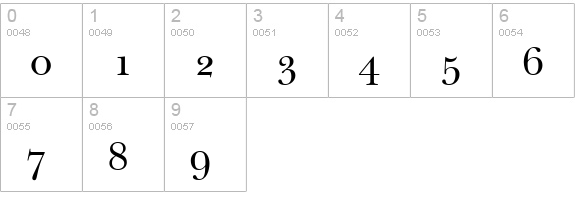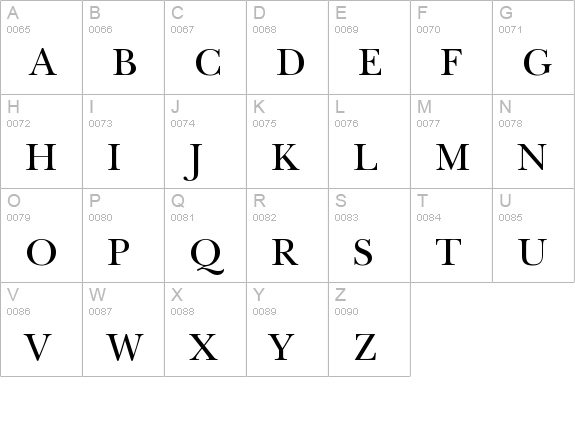
Baskerville Small Caps SSi Small Caps Font Details
Baskerville Small Caps SSi Small Caps font is a timeless and sophisticated typeface that exudes elegance and class. Its sleek and refined design makes it perfect for adding a touch of sophistication to any project. The small caps style adds a unique flair to text, making it stand out in a subtle yet impactful way. What's even better is that this exquisite font is available for free download at FontsMarket.com. Whether you're working on a professional design project or simply looking to elevate your personal creations, Baskerville Small Caps SSi Small Caps font is a versatile and stylish choice that won't cost you a dime. Download it today and unleash the beauty of this classic font in your designs.